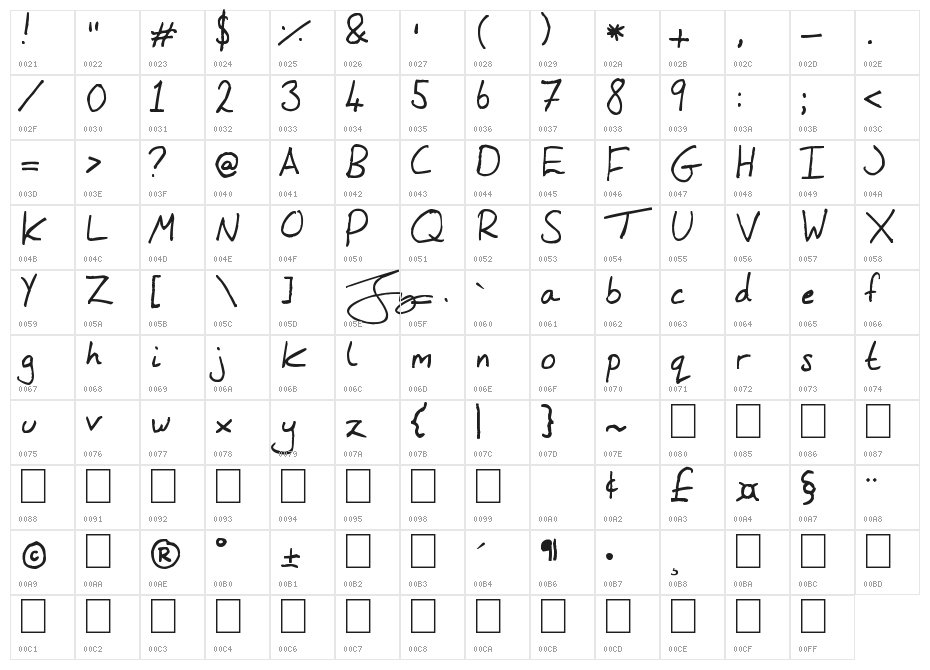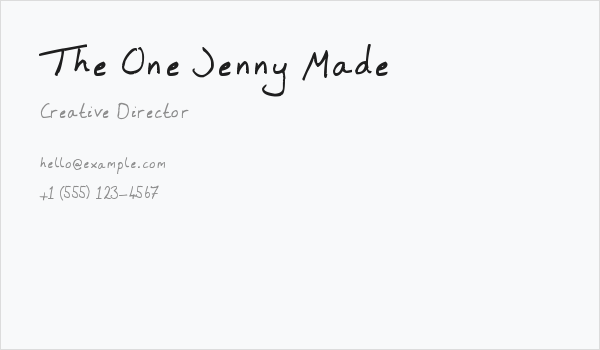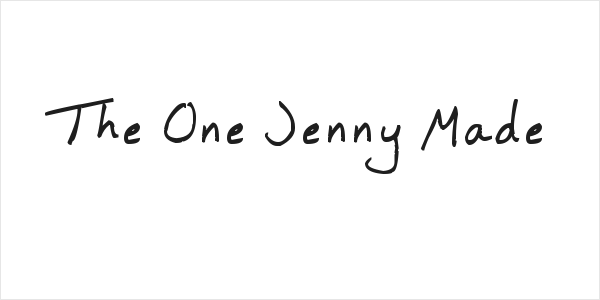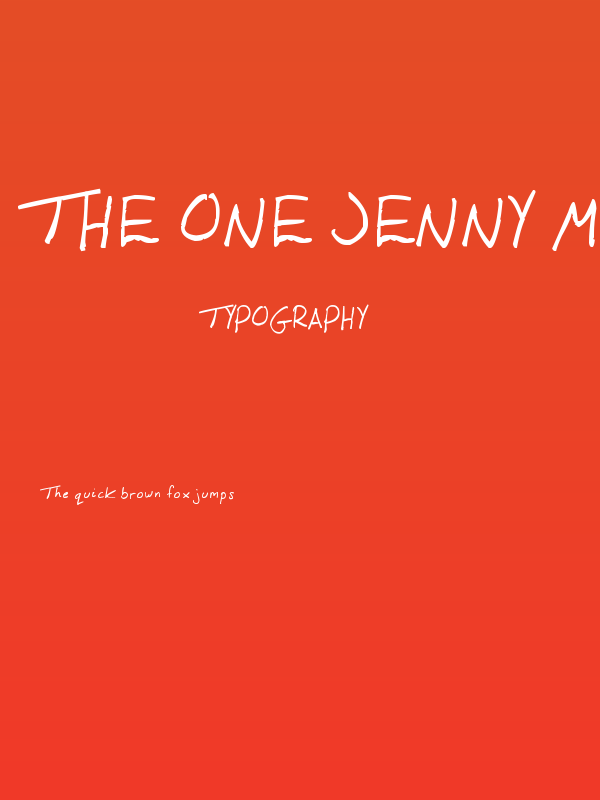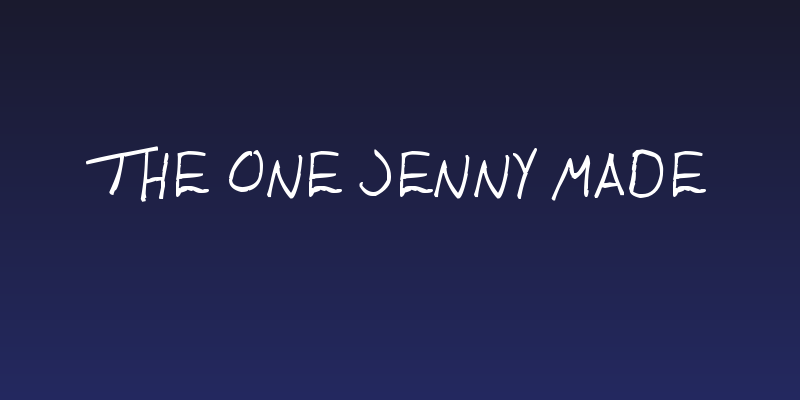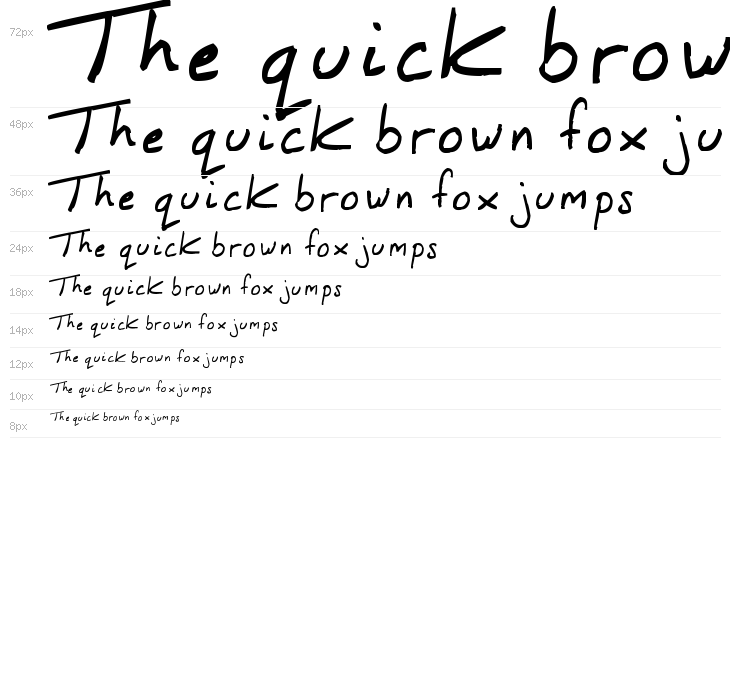
The One Jenny Made Font
The One Jenny Made Description
This font exudes a casual and handwritten style, characterized by its irregular and playful strokes. The letters are slightly slanted, giving it a dynamic and informal appearance. The uppercase and lowercase letters maintain a consistent flow, while the numbers and special characters complement the overall aesthetic. The strokes vary in thickness, adding to the hand-drawn feel, and the characters are spaced in a way that feels natural and unrefined. This font captures a sense of spontaneity and creativity, making it ideal for projects that require a personal touch.